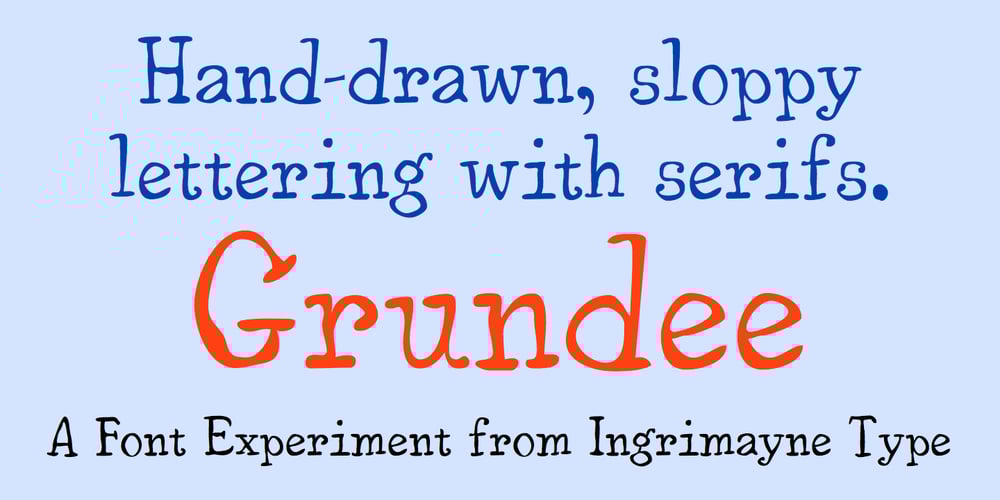
Grundee Font Family was designed by Robert Schenk and published by Ingrimayne Type. Grundee contains 2 styles and family package options. Grundee is a grungy serifed face. It is sloppy and irregular but still quite legible. It was one of several efforts to draw a serifed typeface by pen; see also SarahfSlob, which contains a complete family of styles.